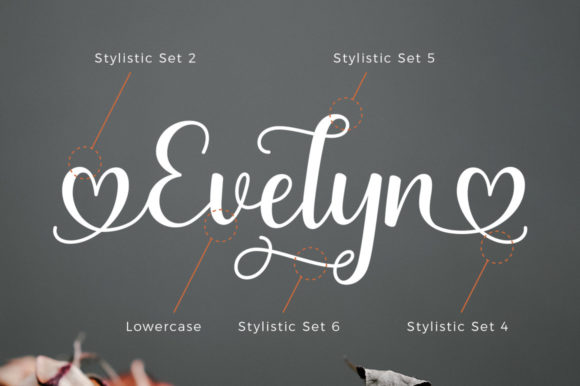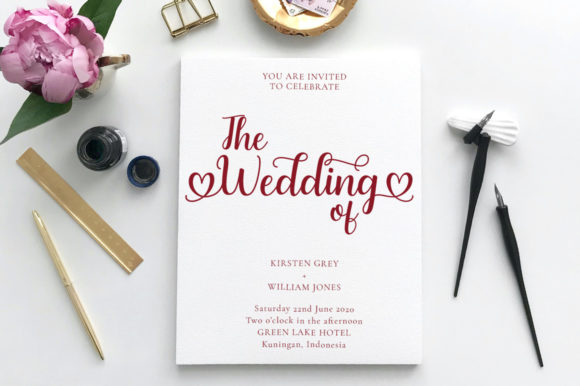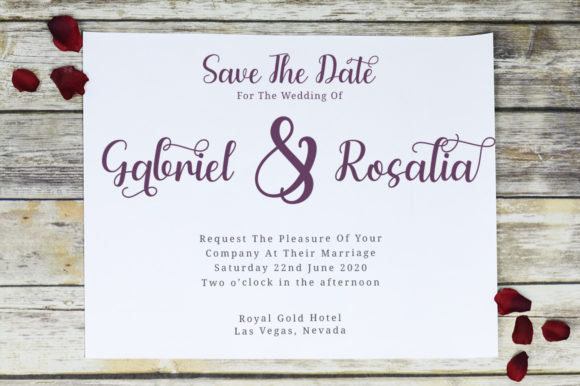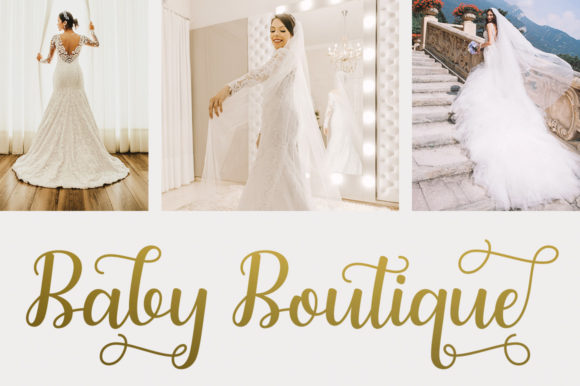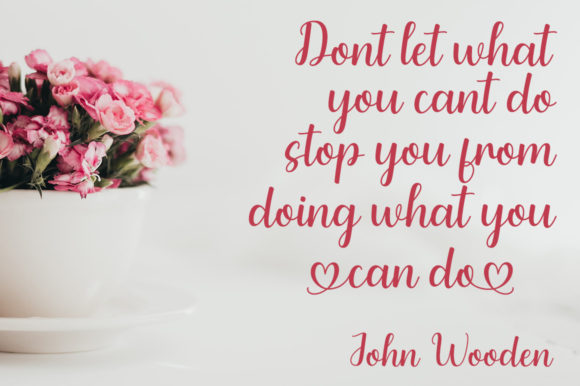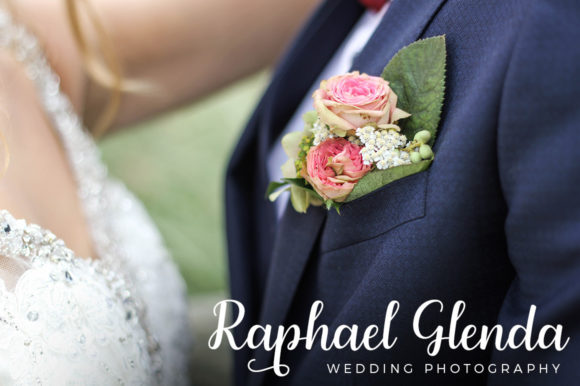
The Aliyah Font: A Lovely Script to Elevate Your Designs
Have you ever been in the middle of a design project, and suddenly, you’re stuck on finding the perfect font? I recall a recent experience where I was working on a branding project for a boutique client, and I just couldn’t find a script font that captured the playful yet elegant vibe I was going for. That’s when I stumbled upon the Aliyah font, and it completely transformed my design. In this article, I’ll share my journey with the Aliyah font, its features, and how you can make the most of it in your creative projects.
An Honest Review of Aliyah Font
What I Love About Aliyah Font
• ✨ Charming and Playful Characters: Aliyah font features lovely, script characters that seem to dance along the baseline, adding a touch of elegance and whimsy to any design.
• ✅ PUA Encoded for Easy Access: Being PUA encoded means you can easily access all glyphs and swashes, making it a breeze to customize your text.
• 💫 Versatile and Creative: Aliyah font is perfect for a wide range of creative projects, from branding and advertising to crafting and DIY tutorials.
While Aliyah font is an excellent choice for many projects, there are a few things to keep in mind:
• ⚠️ Legibility at Small Sizes: Like many script fonts, Aliyah may lose legibility at very small sizes. It’s best used at larger sizes or for headlines and titles.
• 🤔 Pairing with Other Fonts: As with any script font, pairing Aliyah with other fonts can be a bit tricky. You may need to experiment with different combinations to find the perfect match.
A Practical Guide to Using Aliyah Font
The Story Behind Aliyah Font
While I couldn’t find much information on the designer’s background, it’s clear that Aliyah font was created with love and attention to detail. The designer’s inspiration likely came from a mix of traditional calligraphy and modern digital design, resulting in a font that’s both elegant and playful.
Q: How do I pair Aliyah font with other fonts?
A: Pairing Aliyah font with other fonts can be a bit tricky. Experiment with different combinations, and consider using a font pairing tool or seeking inspiration from design blogs and communities.